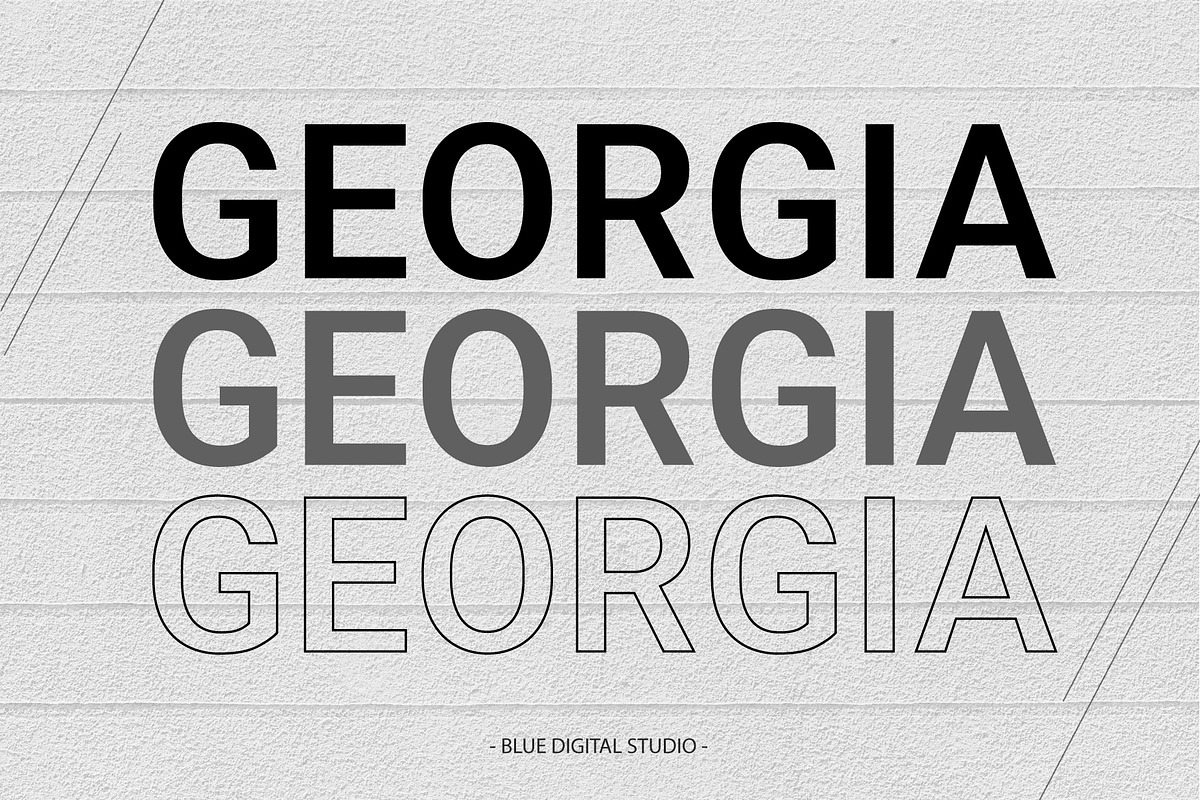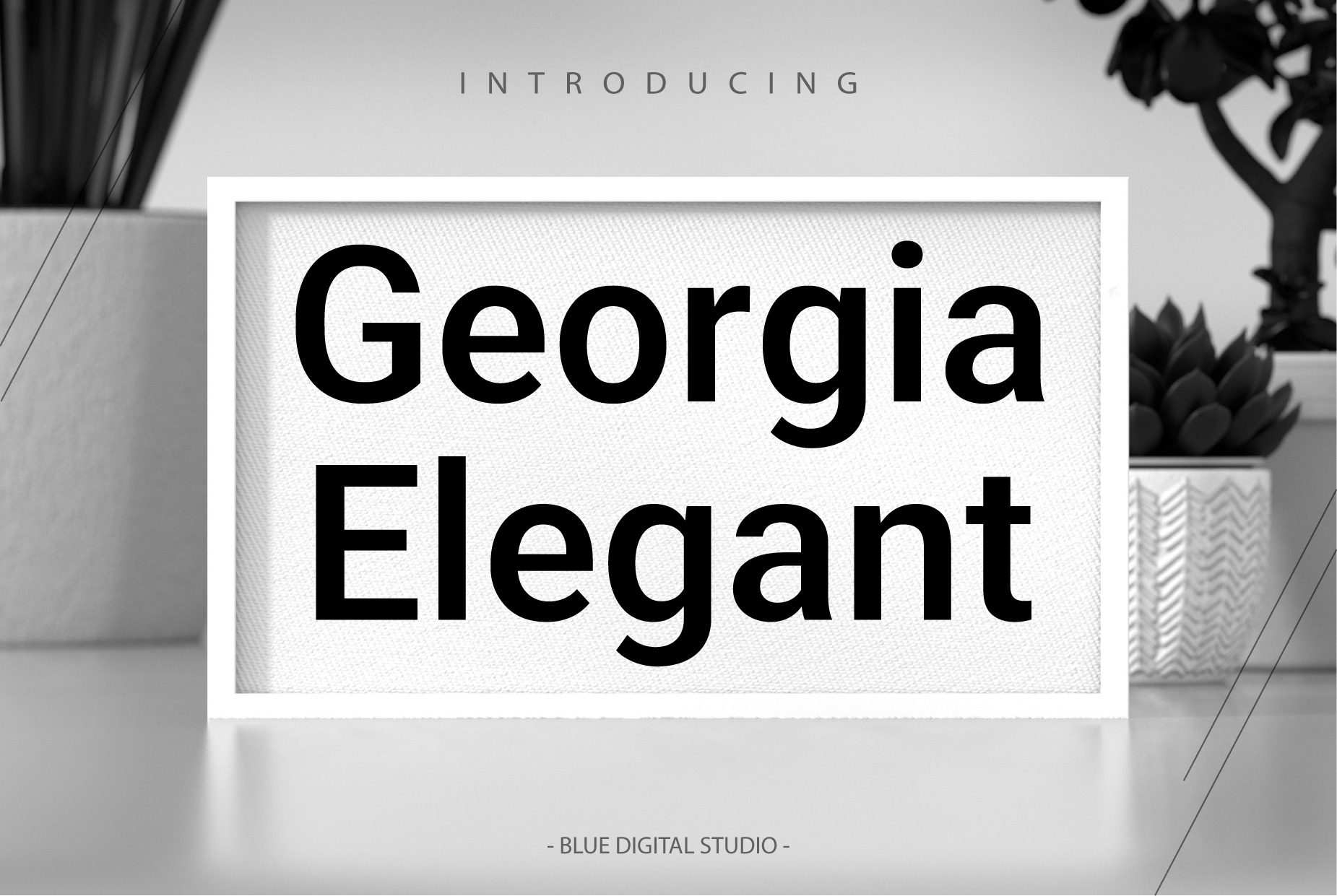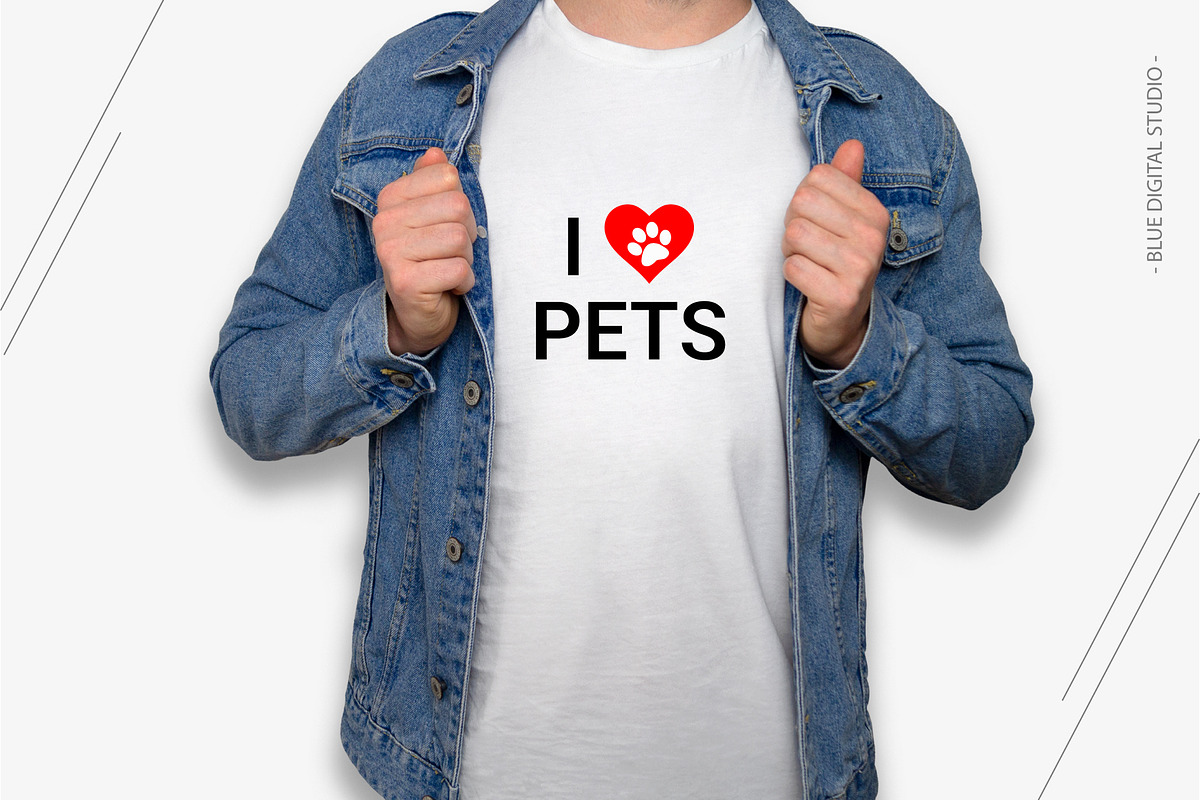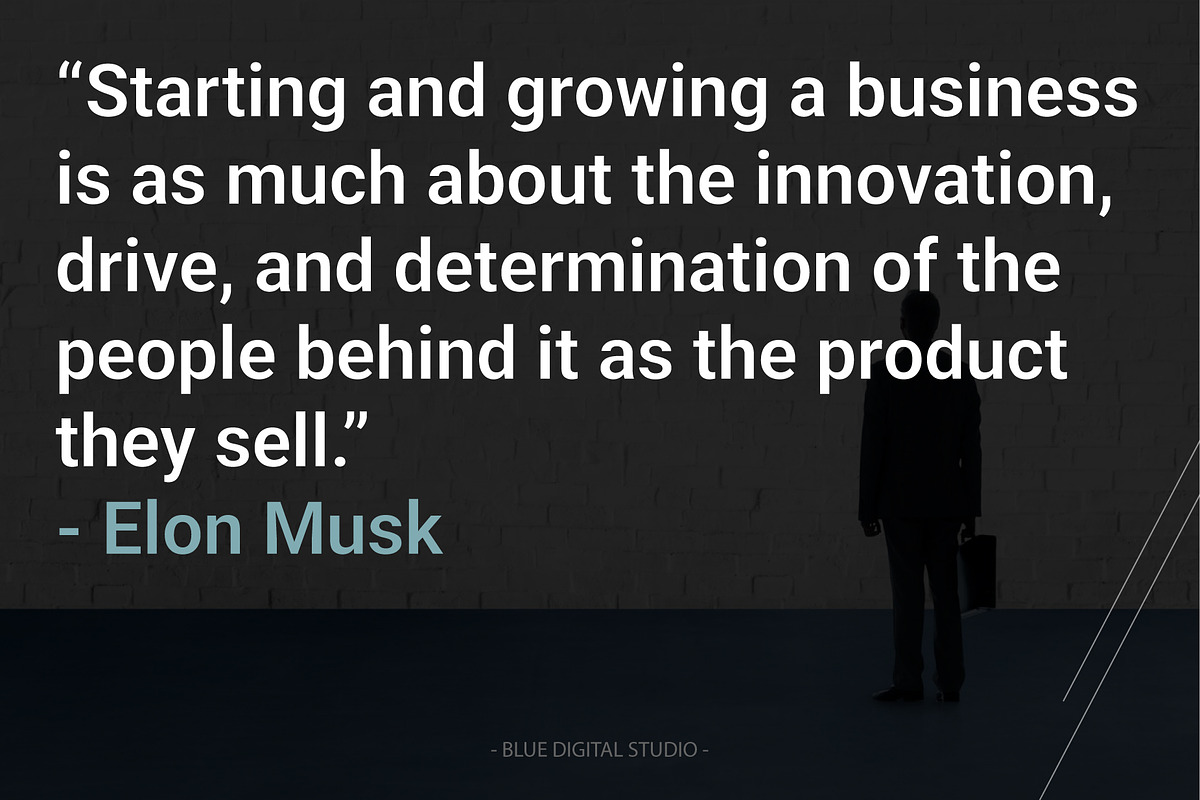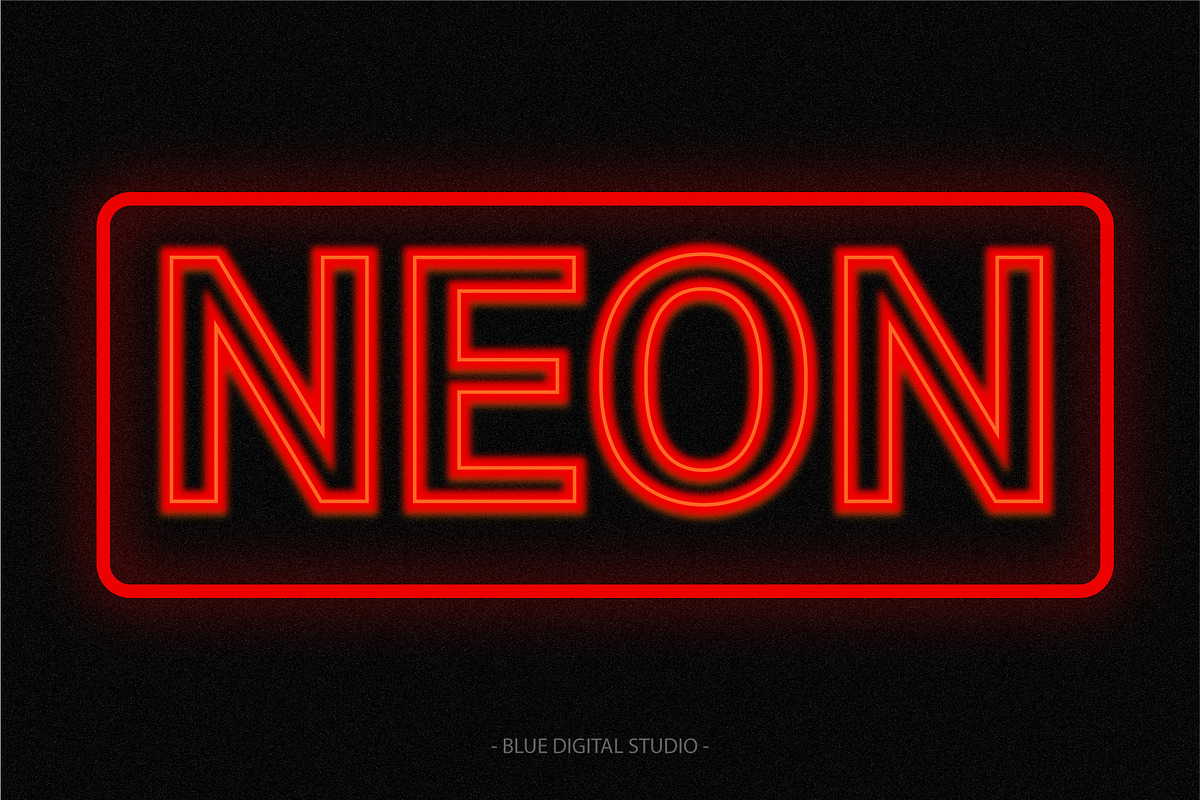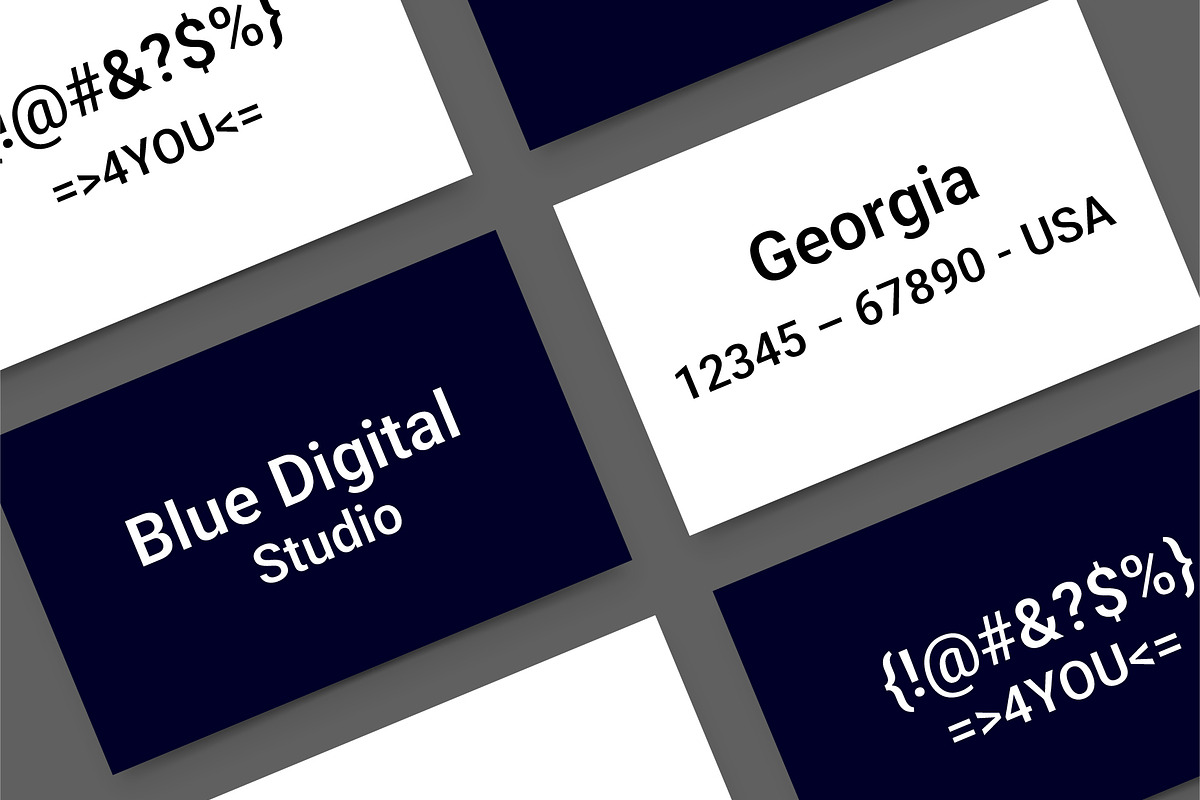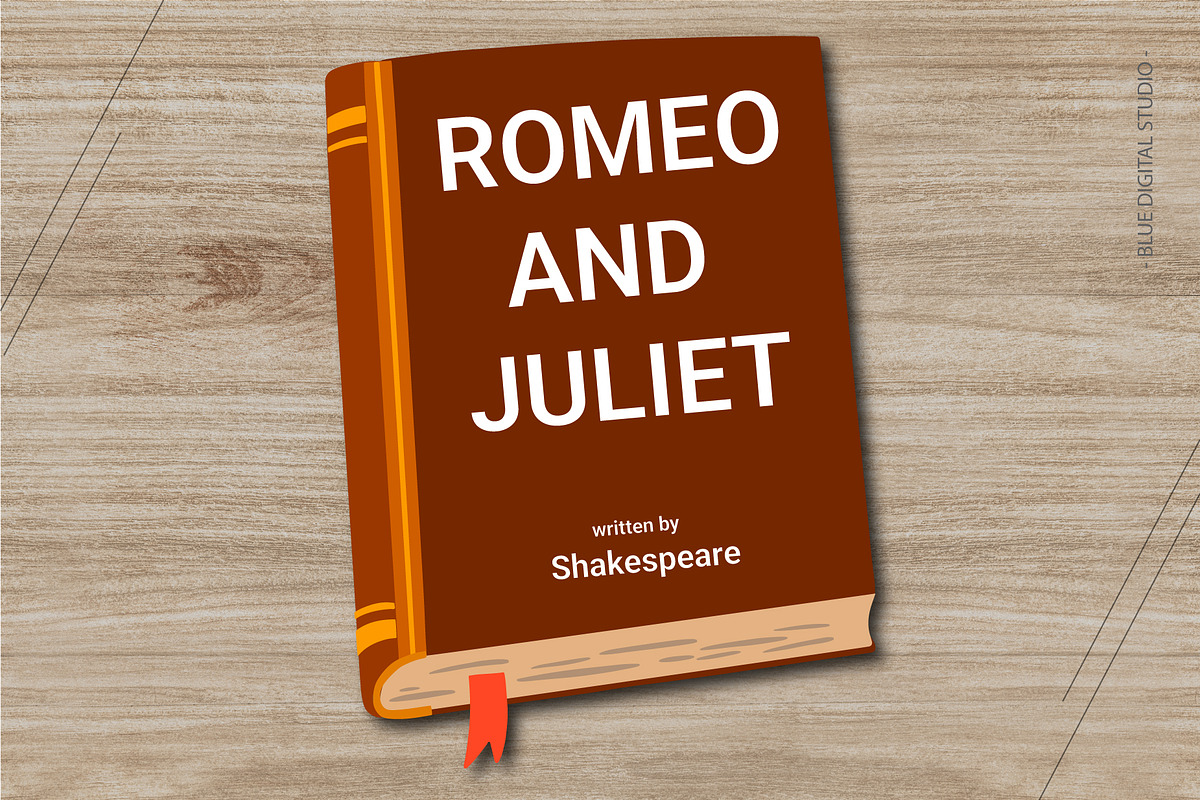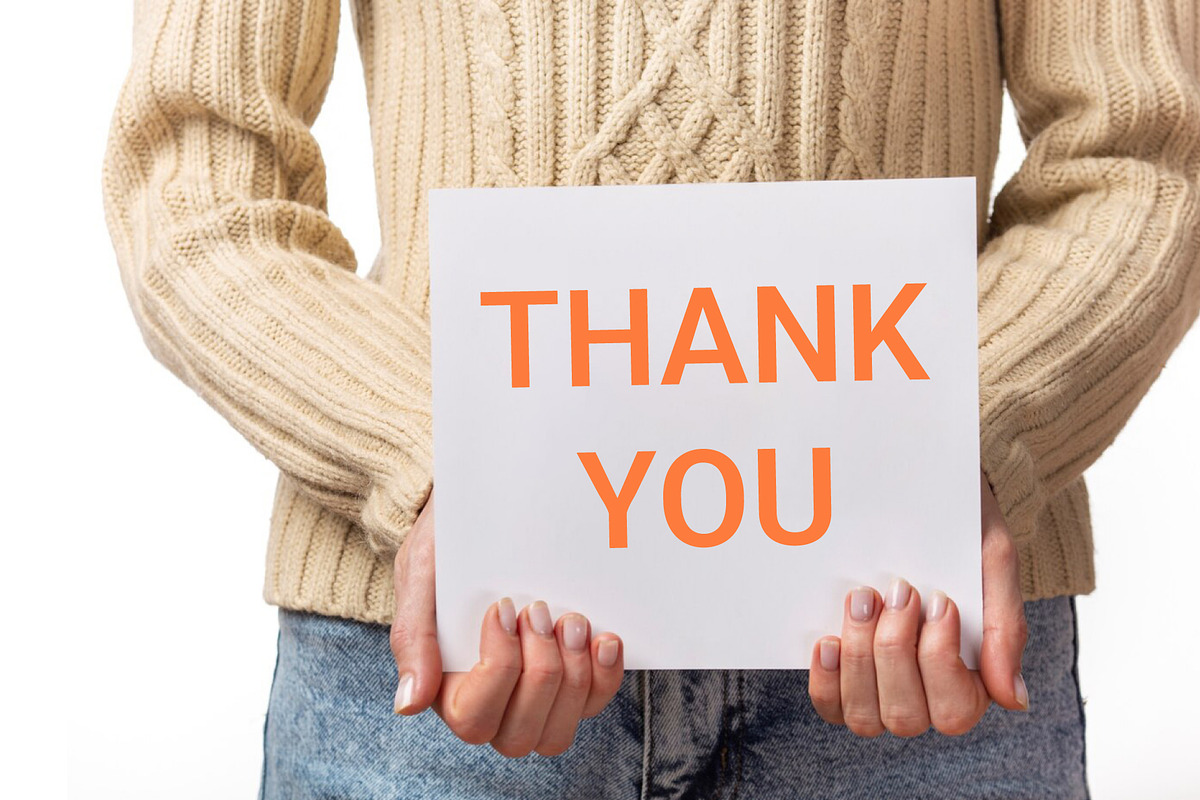
Georgia Elegant Font | New Font
✨ Georgia Elegant Font – Modern & Vintage Display Typeface
Elevate your projects with Georgia Elegant Font, a modern and vintage display typeface designed for headlines, titles, logos, and short text blocks. This stylish and versatile font is perfect for branding, advertising campaigns, social media graphics, Instagram quotes, T-shirt designs, website headers, modern layouts, vintage-style projects, packaging, invitations, editorial designs, and professional marketing materials.
Whether you are working on fashion branding, digital marketing, lifestyle blogs, wedding stationery, or luxury packaging, Georgia Elegant Font adds sophistication, elegance, and readability to every design.
- Complete Character Set: Uppercase, lowercase, numerals, punctuation, symbols, and functional glyphs
- Multilingual Support: Includes accented characters for global projects
- Professional & Elegant: Ideal for print, web, and social media design
- Versatile Use: Perfect for logos, branding, headers, packaging, invitations, quotes, editorial layouts, and more